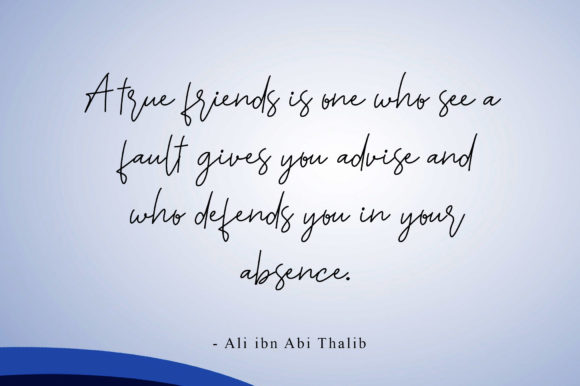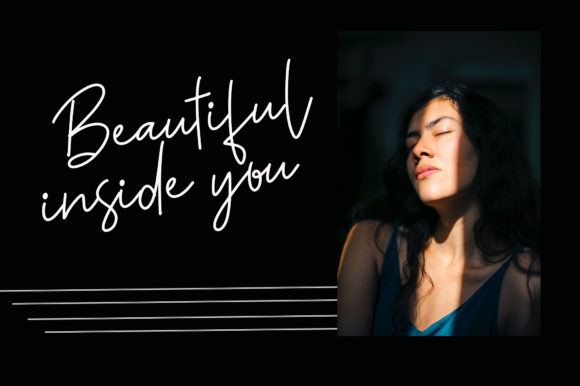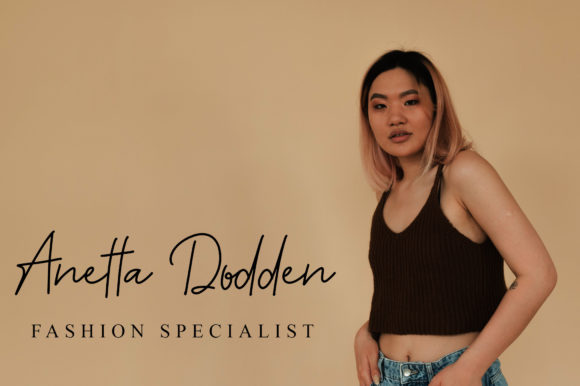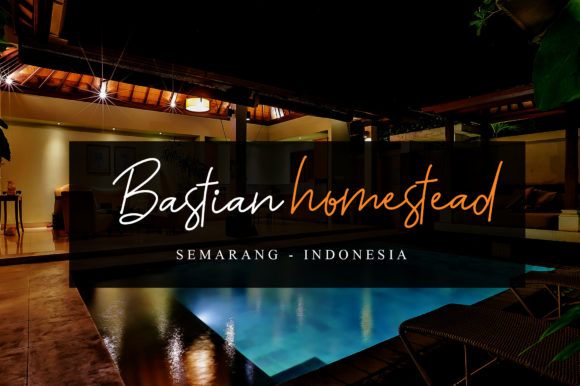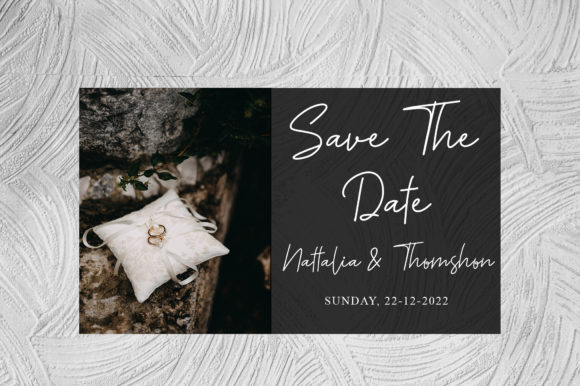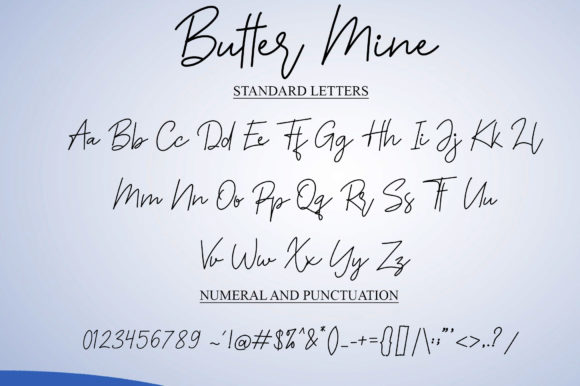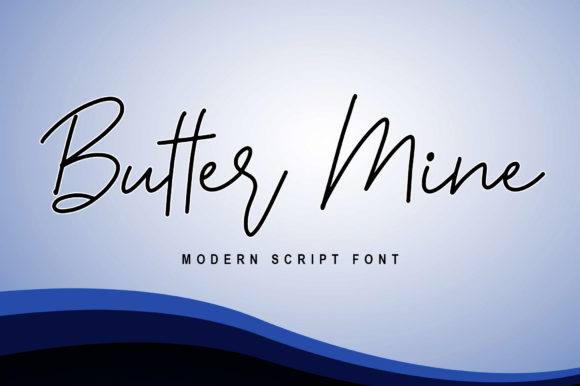
Discover the Elegance of Butter Mine Font: Elevate Your Designs to New Heights
Are you on the hunt for a font that exudes elegance, sophistication, and a touch of modern flair? Look no further than the Butter Mine Font. This exquisite handwritten font is meticulously designed to capture the hearts of designers and crafters alike, making it a true favorite in the world of typography.
The Perfect Blend of Classy and Contemporary
Butter Mine Font strikes the perfect balance between classic calligraphic influences and a fresh, contemporary feel. Its unique blend of traditional and modern elements makes it an incredibly versatile font, suitable for a wide range of design projects. Whether you’re working on a wedding invitation, a branding campaign, or a DIY craft project, Butter Mine Font is sure to impress.
What Makes Butter Mine Font Stand Out?
- Exquisite Handwritten Design: Butter Mine Font boasts a beautifully crafted handwritten design that adds a personal touch to any project.
- Classy Calligraphic Influences: The font’s calligraphic roots give it an air of sophistication and elegance, perfect for high-end designs.
- Contemporary and Fresh: Despite its classic influences, Butter Mine Font feels modern and fresh, ensuring your designs stay current and on-trend.
- Versatility: From wedding stationery to packaging design, Butter Mine Font adapts seamlessly to various design applications.
Why Designers and Crafters Love Butter Mine Font
Designers and crafters adore Butter Mine Font for its ability to elevate their projects to new heights. Its elegant and refined appearance makes it perfect for:
- Wedding and Event Design: Create stunning wedding invitations, save-the-dates, and event branding with a touch of sophistication.
- Branding and Packaging: Add a luxurious feel to your brand’s packaging and marketing materials with this beautiful font.
- DIY Crafts and Scrapbooking: Bring a personal touch to your DIY projects, such as scrapbooking, card making, and journaling.
In conclusion, Butter Mine Font is a true gem in the world of typography. Its exquisite handwritten design, classy calligraphic influences, and contemporary feel make it an ideal choice for designers and crafters seeking to elevate their projects. With its versatility and elegance, Butter Mine Font is sure to become a favorite in your design arsenal. So why wait? Fall in love with Butter Mine Font and bring your designs to the highest levels!